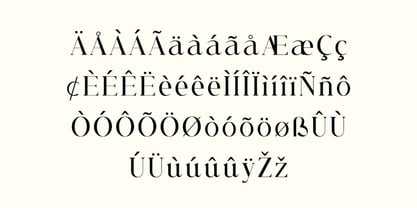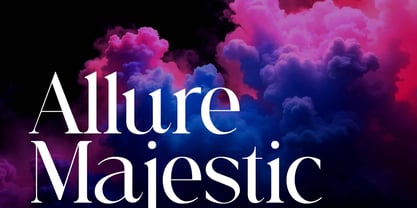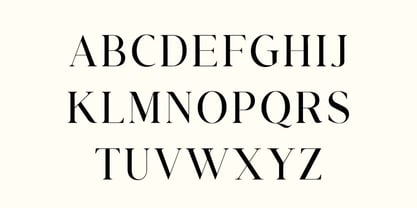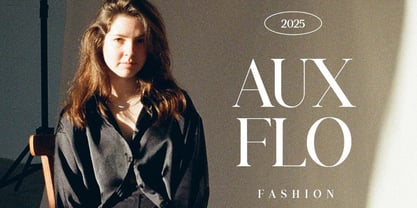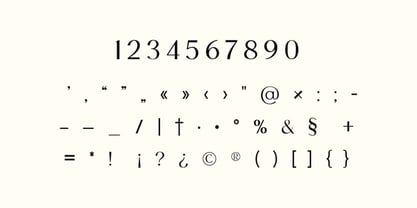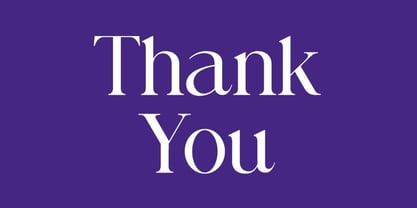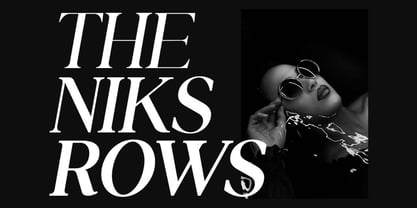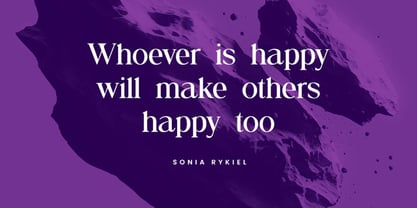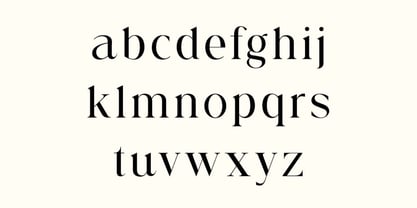
Allure Majestic
by UICreative
The Allure Majestic Font Family was designed by Hero and published by UICreative. Allure Majestic contains 10 styles and family package options. More about this family
Allure Majestic Luxury Serif Font. The modern display font feels beautiful classy, elegant, and stylish. This font is ideally suited for a wide variety of projects, such as signature, stationery, logo, wedding, typography quotes, magazine or book covers, website headers, branding, and more. Also, fashion-related branding or editorial design displays both masculine and feminine qualities.
Designers: Hero
Foundry: UICreative